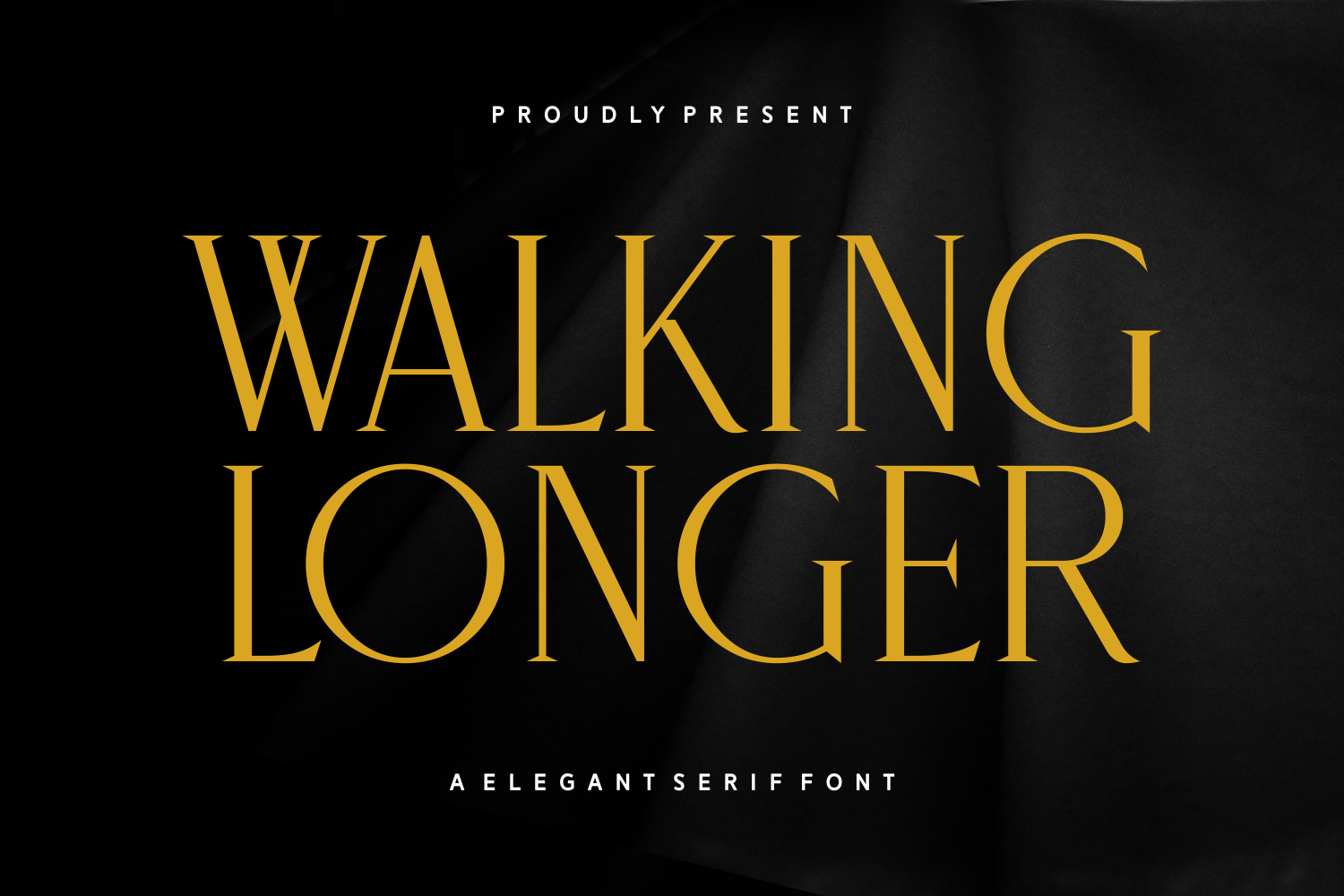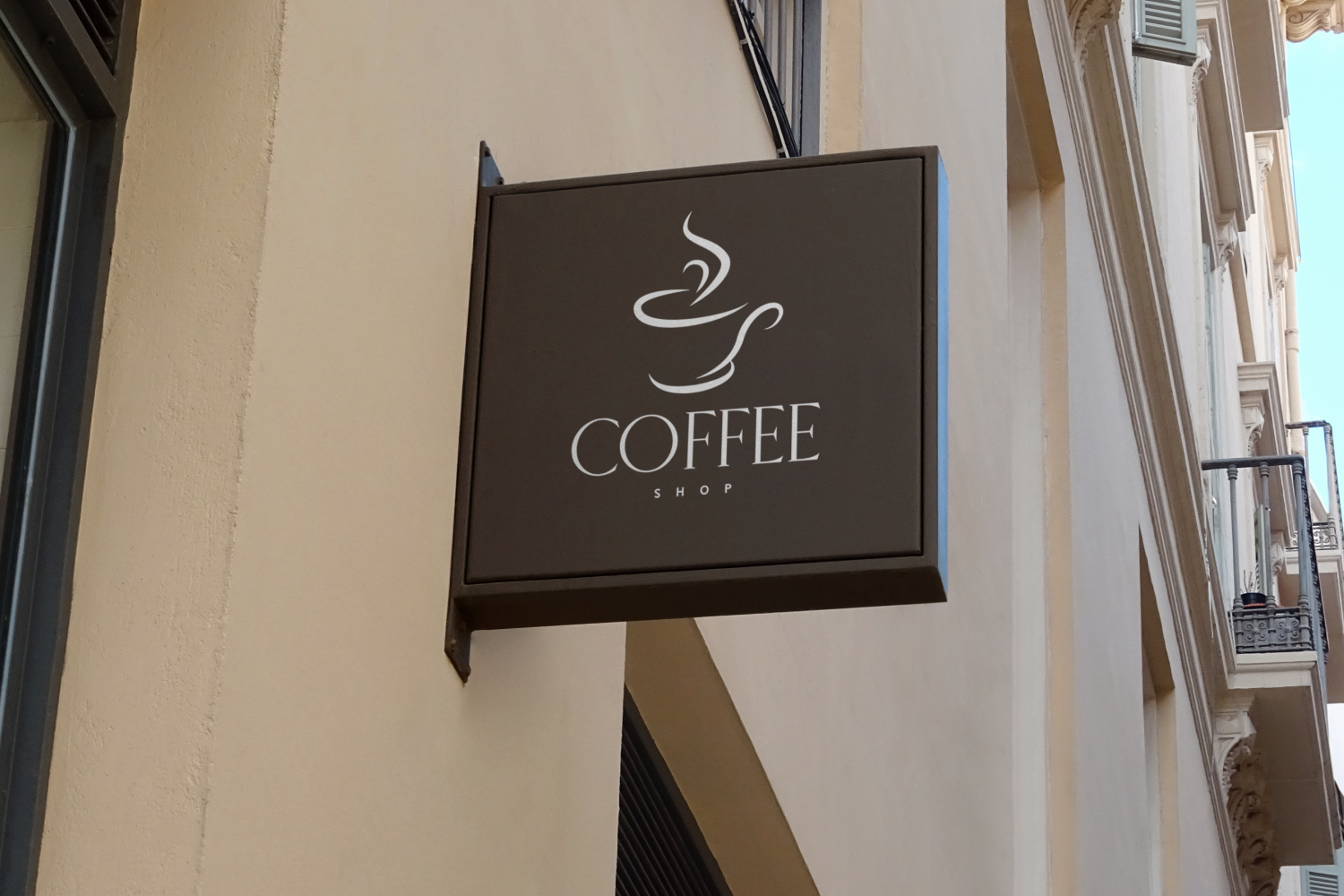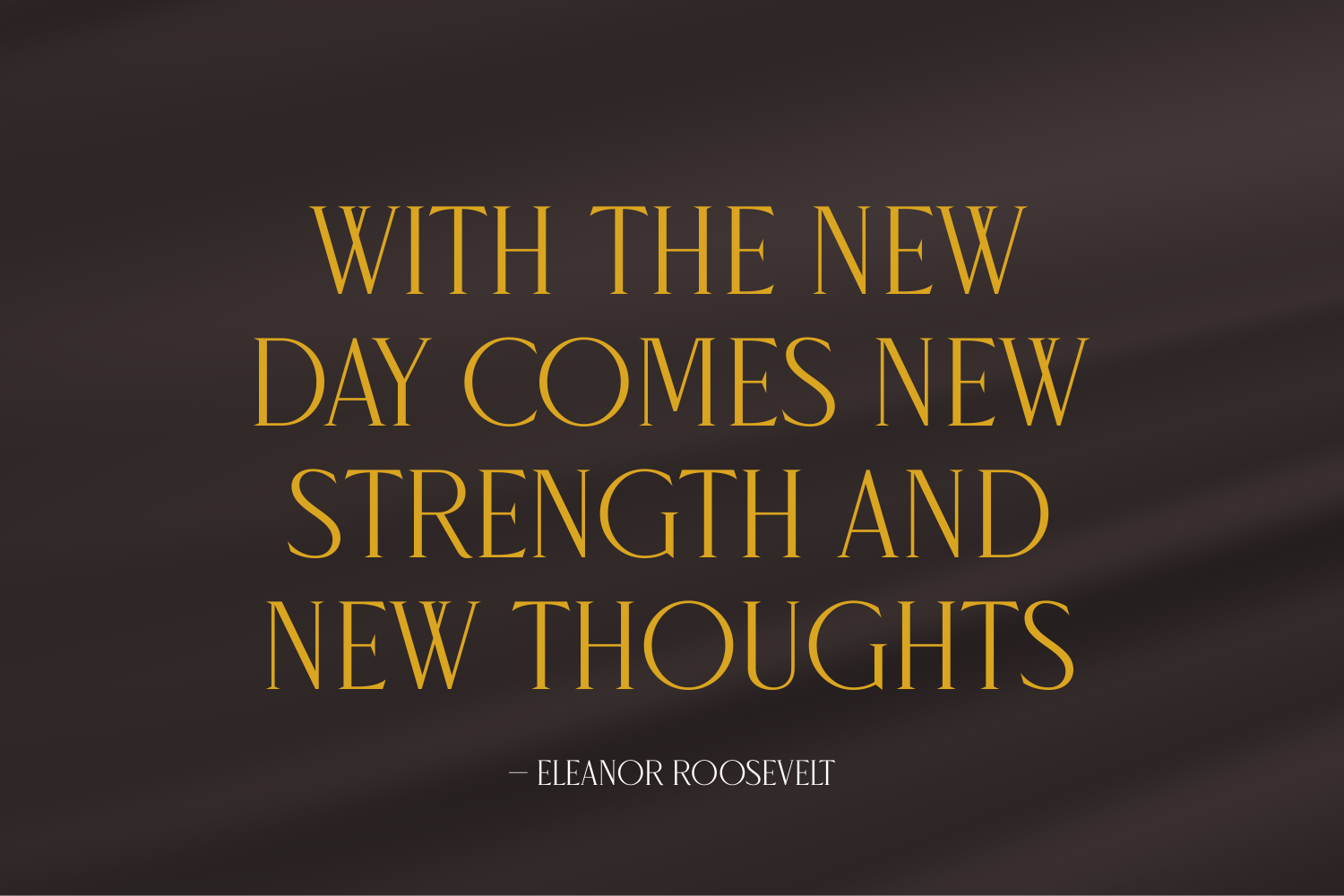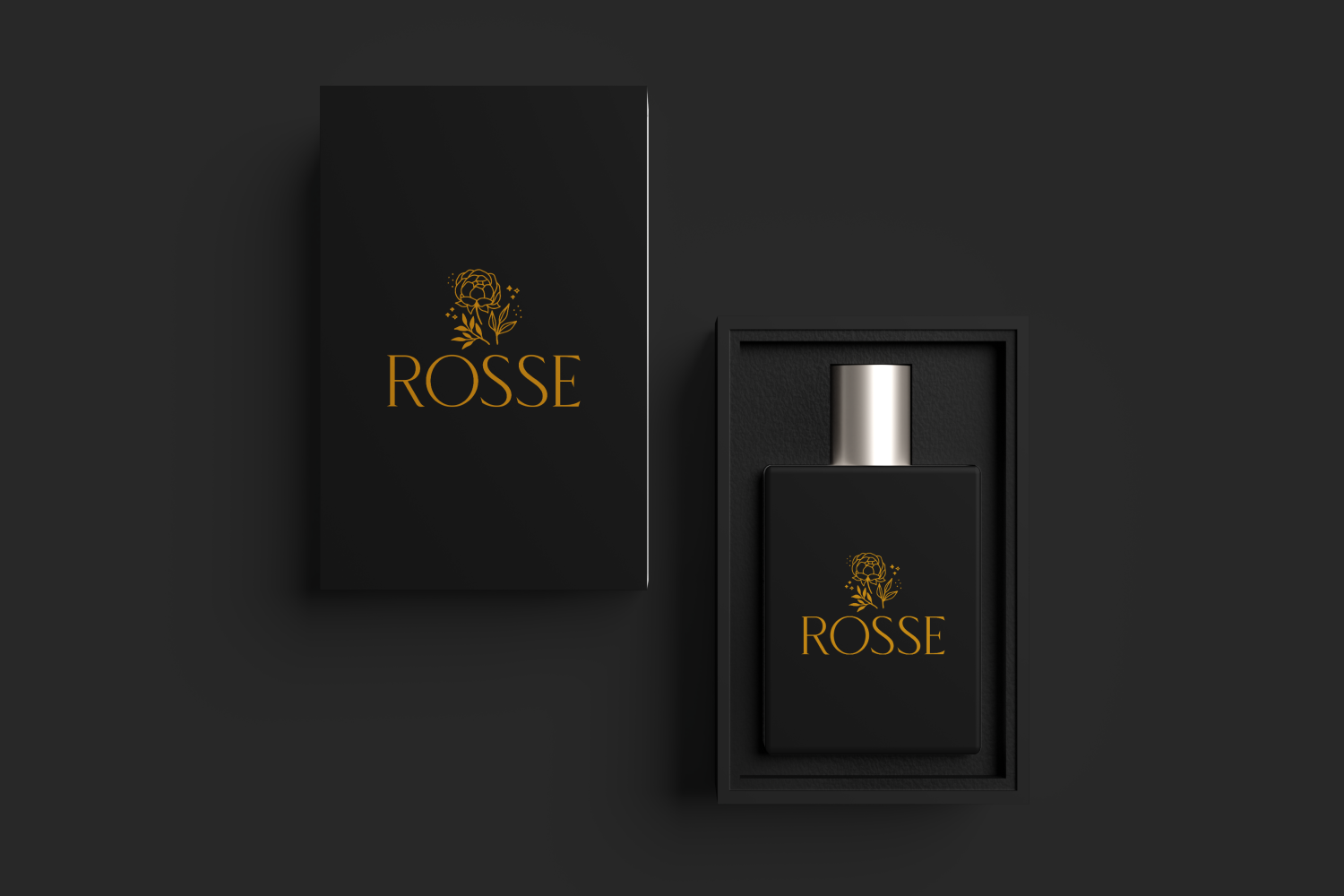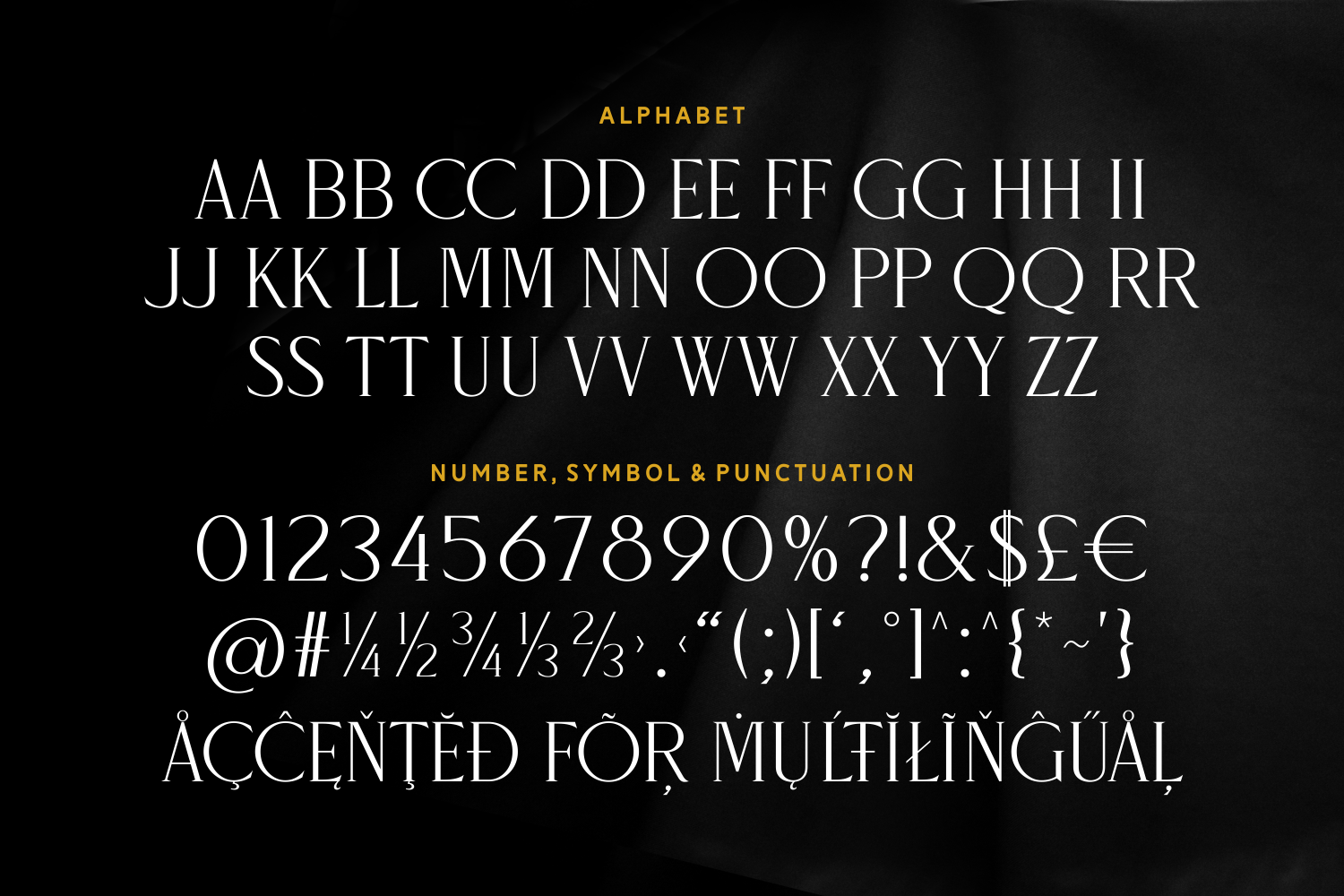
Walking Longer is a refined and confident serif font designed to convey elegance and strength. With its tall, sharp letterforms and polished styling, it’s ideal for branding, fashion, book covers, and editorial layouts.